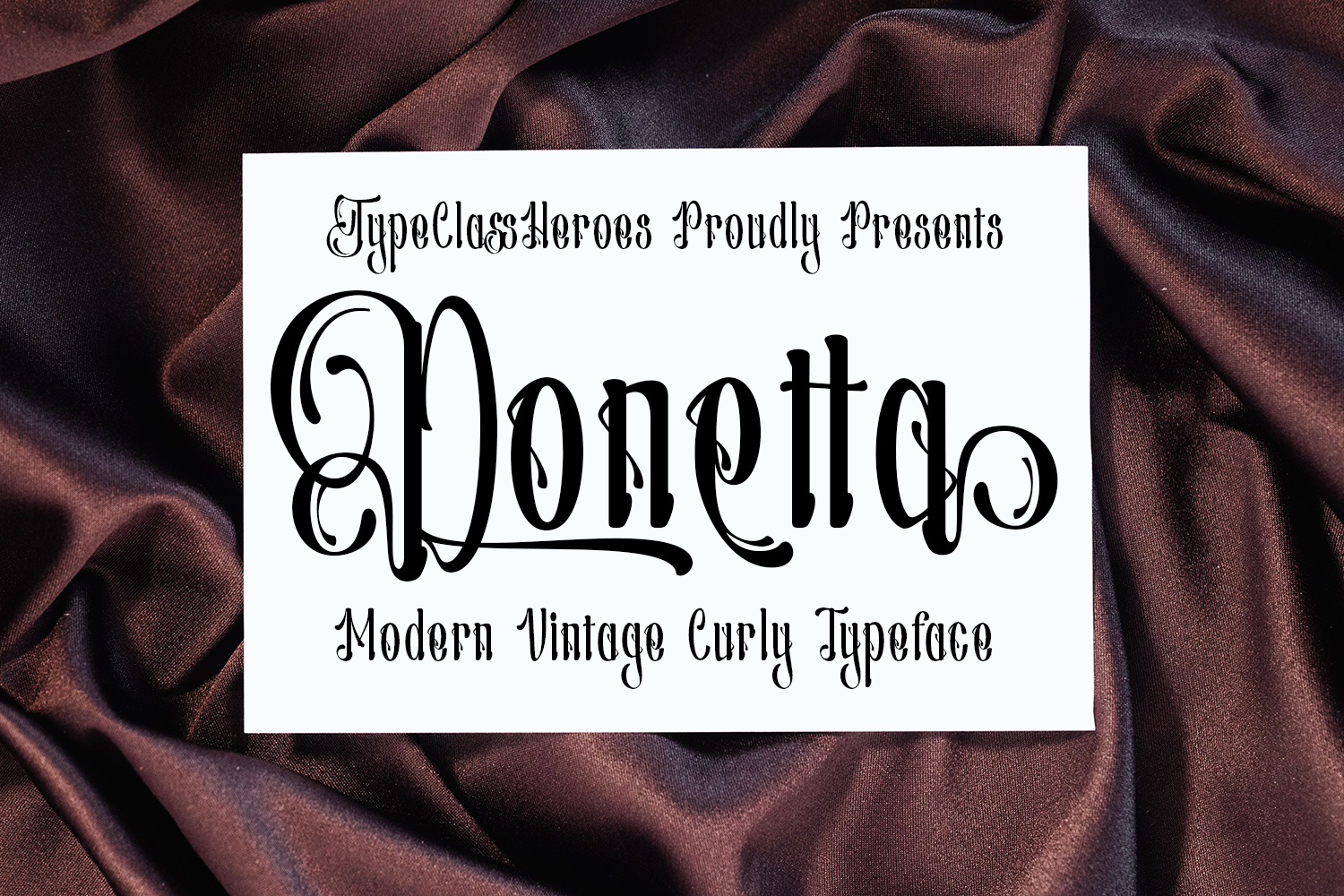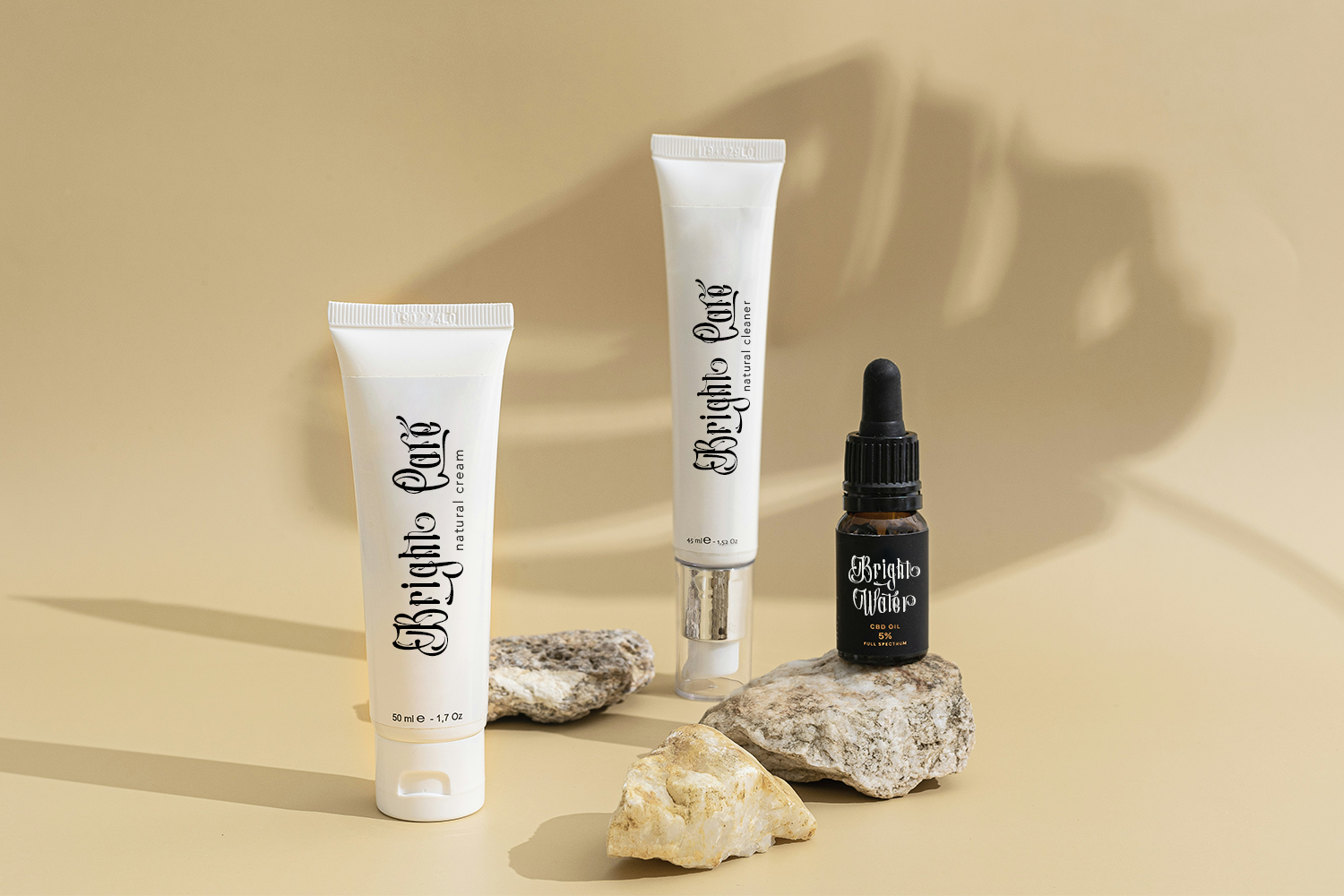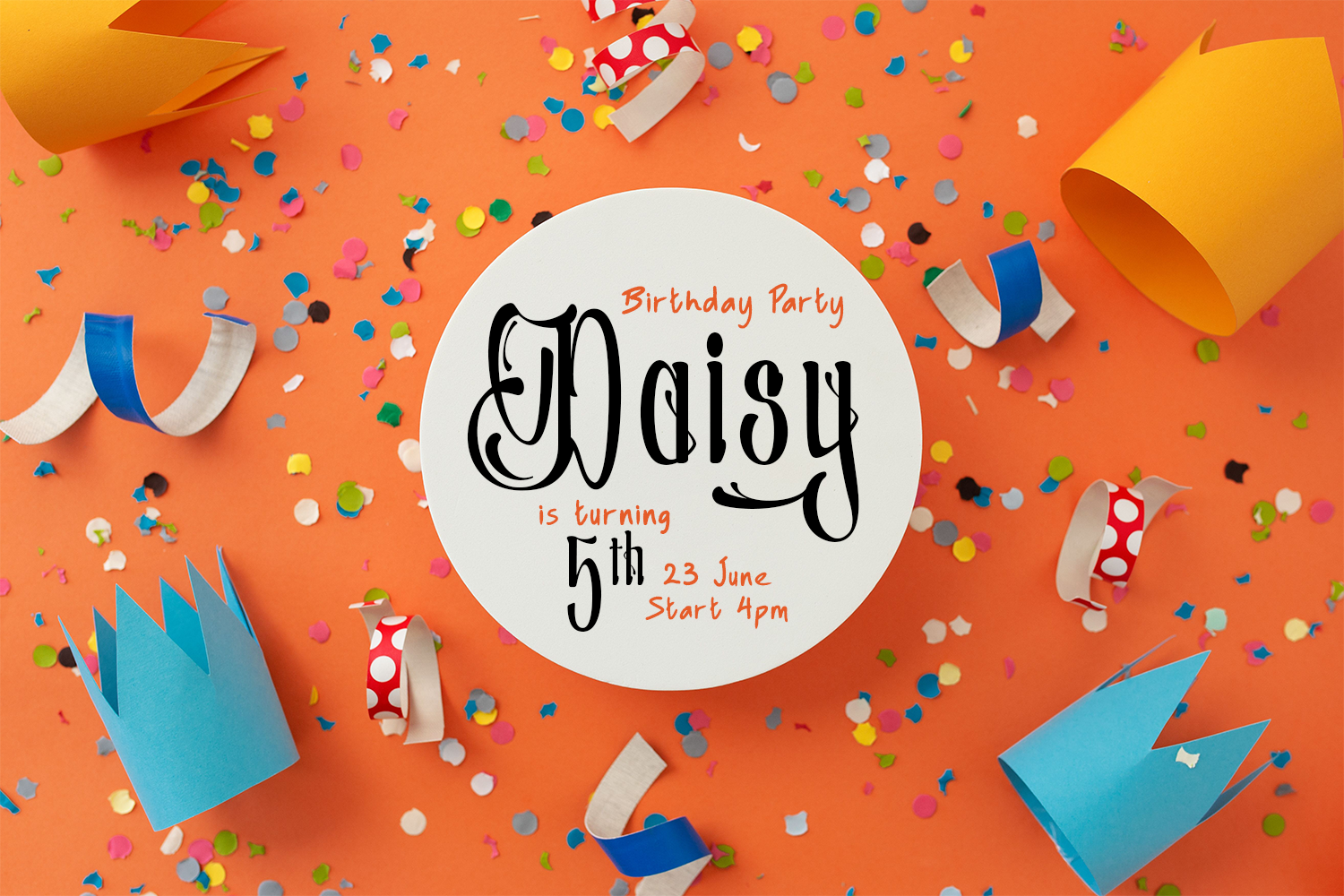
Introducing Donetta, this is a modern vintage curly typeface. Each character features ornamental accents that create an appearance resembling beautiful handwriting or classic calligraphy. This font strikes a balance between classic and feminine aesthetics, featuring a blend of stylistic roots in every letter. While inspired by vintage lettering styles, its form is also perfectly suited for modern designs that call for an elegant touch. It is an excellent choice for logos, wedding designs, branding, packaging, invitation and headlines or display text and various other elegant designs.